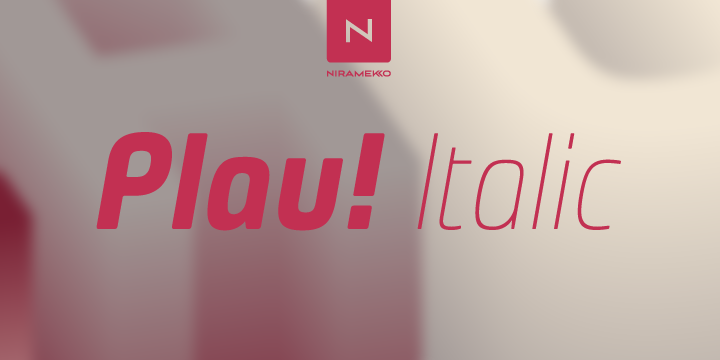
Plau Italics Font Free Download is a sleek and dynamic italic typeface that combines modern design elements with fluid motion. Its smooth curves and stylish slant make it an ideal choice for branding, editorial headlines, advertising, web design, and contemporary visual identities. Plau Italics adds energy and sophistication to any creative project.
The font’s carefully crafted letterforms ensure excellent readability while maintaining a distinctive and expressive character. Its versatility allows it to enhance both bold headline compositions and elegant subheadings, making it suitable for various media formats. Plau Italics effectively communicates a sense of movement, modernity, and creativity.
Plau Italics is a powerful tool for designers seeking a contemporary, energetic, and sophisticated italic font that elevates the visual impact of their work.